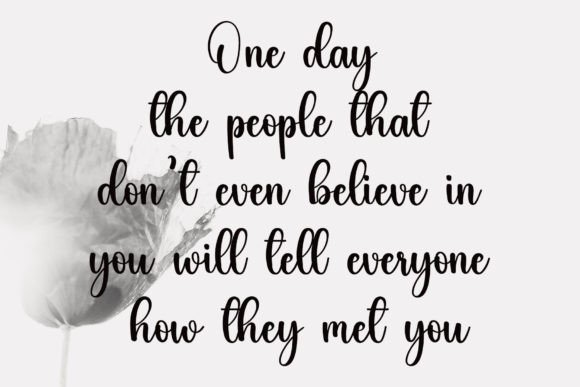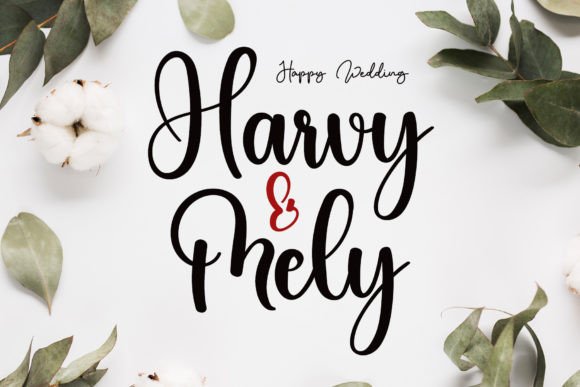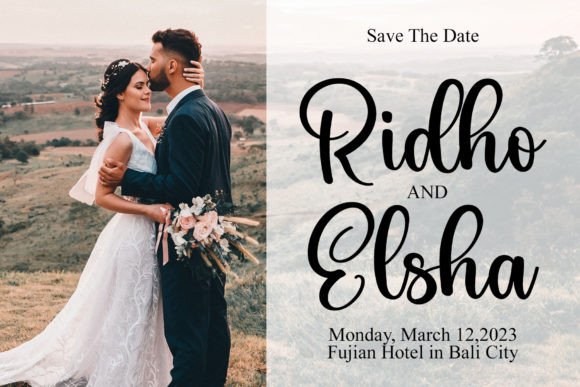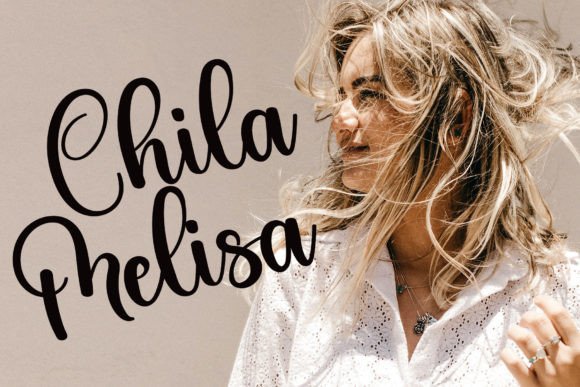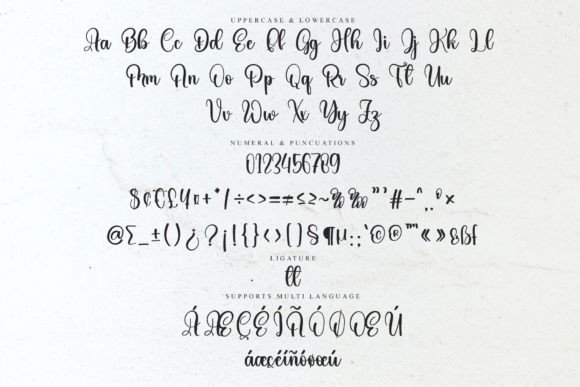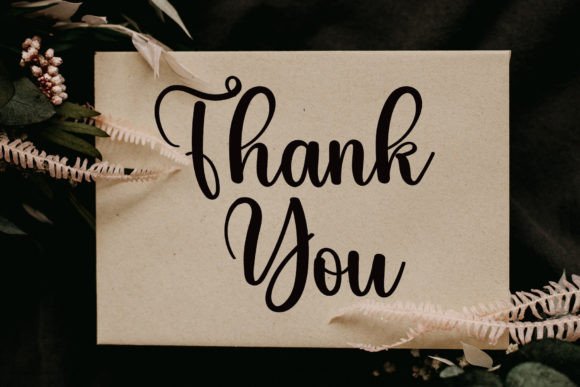
Introducing Educate Font: Elevate Your Designs with Timeless Elegance
Are you a designer or crafter looking for a font that exudes sophistication and style? Look no further than Educate Font, a stunning handwritten font that brings a touch of classic calligraphy to your projects. With its contemporary atmosphere and impeccable form, Educate Font is the perfect choice for those seeking to add a level of elegance to their designs.
Inspired by Timeless Classic Calligraphy
Educate Font draws inspiration from the timeless world of classic calligraphy, where the art of beautiful handwriting is revered. The font’s creator has meticulously crafted each letter to reflect the balance and harmony found in traditional calligraphy, while infusing it with a modern twist. The result is a font that feels both nostalgic and fresh, perfect for designers who want to create something truly unique.
Balanced and Varied: The Hallmarks of Educate Font
One of the standout features of Educate Font is its exceptional balance and variation. The font boasts a range of subtle nuances, from the gentle flow of the letters to the carefully crafted connections between words. This attention to detail ensures that Educate Font is not only beautiful but also highly legible, making it suitable for a wide range of applications, from signage and branding to packaging and editorial design.
Enhance the Beauty of Your Projects
Educate Font is designed to elevate the beauty of your projects, adding a touch of sophistication and refinement to any design. Whether you’re working on a luxury brand campaign, creating bespoke stationery, or crafting a unique visual identity, Educate Font provides the perfect foundation. Its versatility and elegance ensure that it will complement a wide range of design styles, from minimalist to ornate.
Educate Font is an ideal choice for designers and crafters who value attention to detail and a passion for beautiful typography. Whether you’re a seasoned professional or just starting out, this font provides a valuable tool for creating stunning designs that stand out from the crowd. With Educate Font, you can:
- Create stunning branding and packaging designs that exude luxury and sophistication
- Develop unique and eye-catching signage and display materials
- Design beautiful stationery and invitations that make a lasting impression
- Enhance your editorial designs with a touch of elegance and refinement
Key Features of Educate Font
So, what makes Educate Font so special? Here are just a few of its key features:
- Stylish handwritten font with a contemporary atmosphere
- Inspired by timeless classic calligraphy
- Balanced and varied letterforms for exceptional legibility
- Impeccable form and attention to detail
- Versatile and elegant, suitable for a wide range of design applications
In conclusion, Educate Font is a truly exceptional font that offers designers and crafters a unique opportunity to elevate their designs with timeless elegance. With its beautiful, handwritten letterforms and impeccable form, Educate Font is the perfect choice for anyone seeking to add a touch of sophistication and refinement to their projects. So why wait? Discover the beauty of Educate Font today and take your designs to the next level.